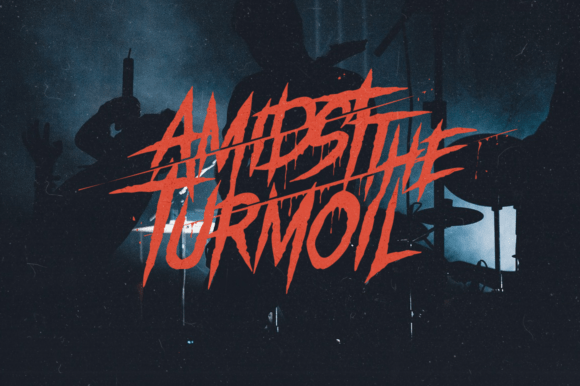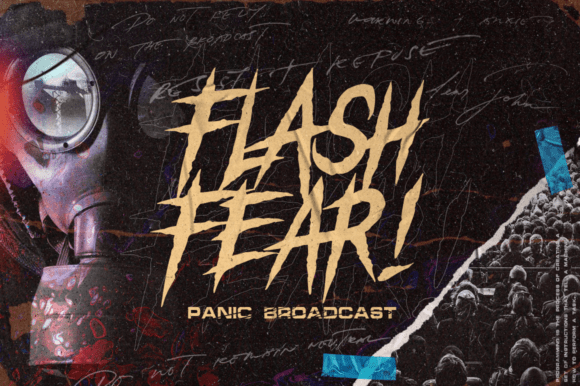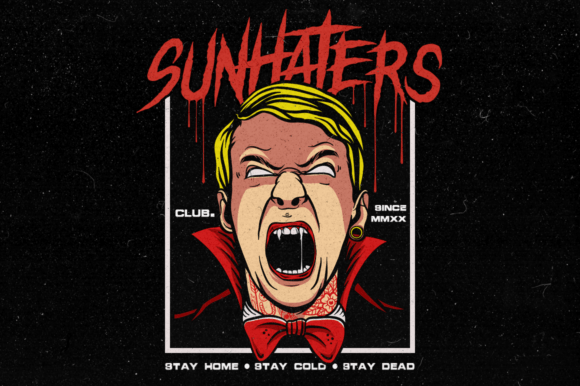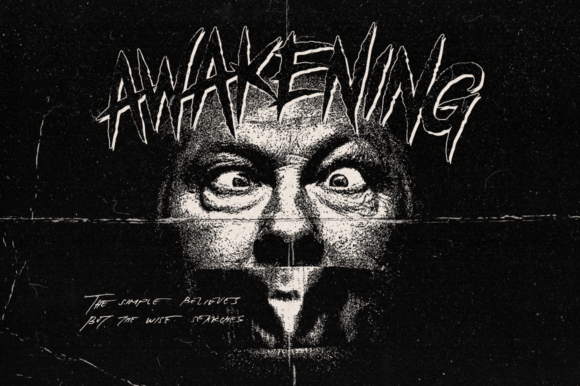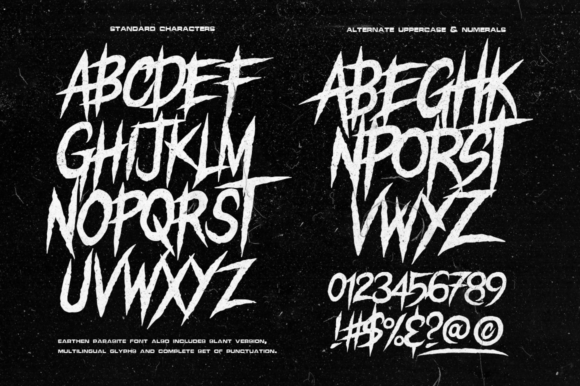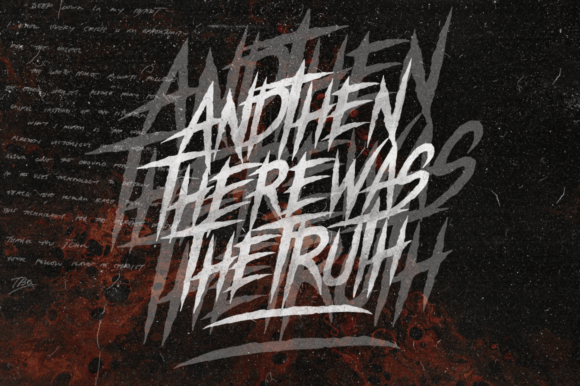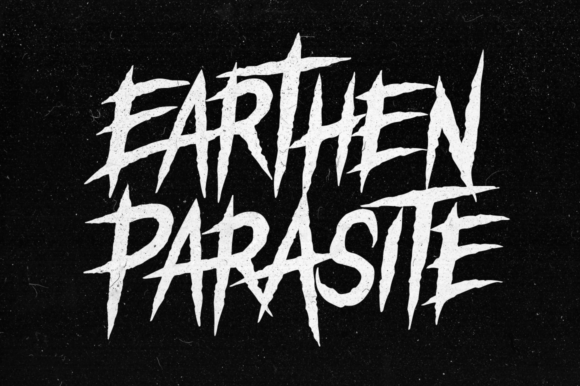
Unleash the Chaos: Introducing the Earthen Parasite Font
In the world of typography, fonts are often designed to evoke a sense of elegance, sophistication, and refinement. However, there are times when a designer wants to shake things up and add a touch of chaos to their work. This is where the Earthen Parasite font comes in – a bold, unconventional typeface that is sure to stir up the waters and leave a lasting impression.
The Concept Behind Earthen Parasite
Earthen Parasite is a font that defies traditional notions of beauty and aesthetics. Its creator aimed to craft a typeface that would be best described as a “restless nightmare” – a font that would inject a sense of unease and unpredictability into designs. With its irregular shapes, jagged lines, and organic feel, Earthen Parasite is the perfect choice for designers who want to add a touch of havoc to their work.
Design Features of Earthen Parasite
So, what makes Earthen Parasite so unique? Here are some of its key design features:
• Irregular shapes: Earthen Parasite’s characters are not bound by traditional shapes or forms. Instead, they twist and turn in unexpected ways, creating a sense of tension and unease.
• Jagged lines: The font’s lines are rough and jagged, giving it a raw, unpolished feel that is sure to grab attention.
• Organic feel: Earthen Parasite has an organic, almost biological feel to it, as if it’s grown from the earth itself.
Use Cases for Earthen Parasite
So, when should you use Earthen Parasite in your designs? Here are some ideas to get you started:
• Horror and thriller designs: Earthen Parasite’s unsettling feel makes it perfect for horror and thriller-themed designs, such as movie posters, book covers, or even website headers.
• Experimental art: If you’re an experimental artist or designer, Earthen Parasite can be a great addition to your toolkit. Use it to create bold, avant-garde statements that challenge traditional notions of beauty.
• Edgy branding: If you’re looking to create a brand that stands out from the crowd, Earthen Parasite can be a great choice. Use it to create a bold, attention-grabbing logo or typographic treatment.
Tips for Working with Earthen Parasite
While Earthen Parasite is a versatile font, it can be challenging to work with. Here are some tips to help you get the most out of this font:
• Use it sparingly: Earthen Parasite is a bold font that can quickly overwhelm a design. Use it sparingly to create emphasis and draw attention.
• Pair it with contrasting fonts: To create visual interest, pair Earthen Parasite with contrasting fonts that are more traditional or elegant.
• Experiment with colors: Earthen Parasite looks great in bold, bright colors. Experiment with different color schemes to find the one that works best for your design.
Earthen Parasite is a font that is sure to stir up the waters and challenge traditional notions of beauty. With its irregular shapes, jagged lines, and organic feel, it’s the perfect choice for designers who want to add a touch of chaos to their work. Whether you’re creating a horror-themed design, experimental art, or edgy branding, Earthen Parasite is a great choice. So, give in to the Earthen Parasite and unleash the chaos in your designs!